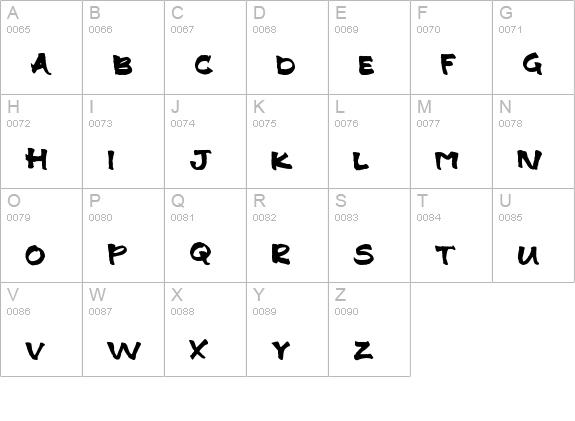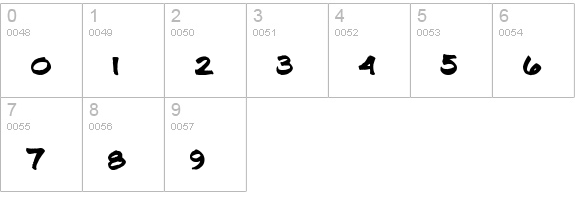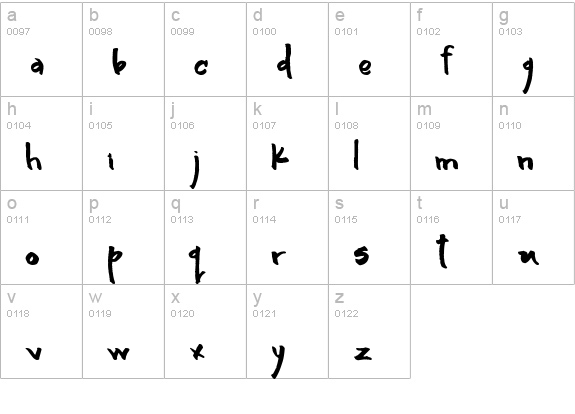
Landie Font Details
Landie font is a stunning display font that effortlessly combines elegance with a touch of modernity. With its stylish and unique letterforms, Landie font is perfect for adding a touch of sophistication to any project. Whether you're designing a logo, creating a poster, or crafting a memorable headline, Landie font will surely captivate your audience. What's even better is that Landie font is available for free! Yes, you read that right. This amazing font can be freely downloaded at FontsMarket.com, making it accessible to anyone who wants to add a touch of class to their designs without breaking the bank. So why wait? Grab Landie font today and let your creativity soar.